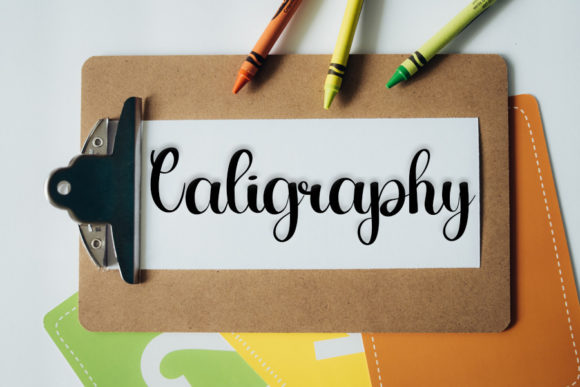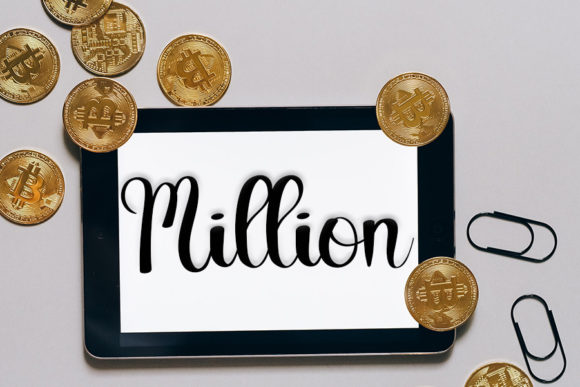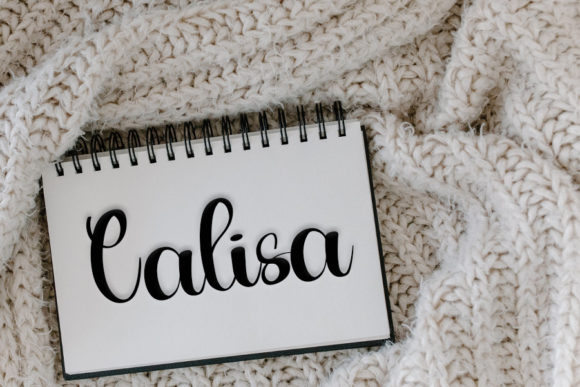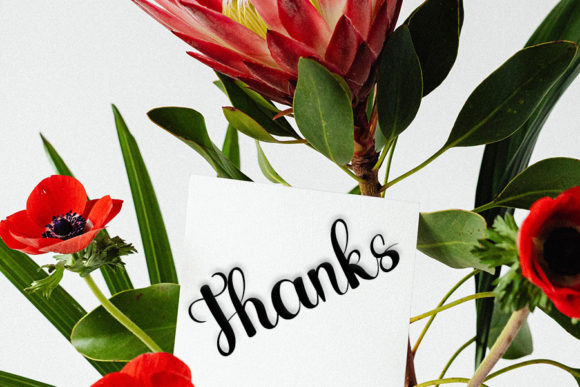
Erlangga Font: The Cute and Charming Handwritten Font for Your Creative Projects
Are you a designer or crafter looking for a font that can add a touch of personality and whimsy to your projects? Look no further than Erlangga Font, a beautiful and charming handwritten font that’s perfect for a wide range of creative endeavors. In this article, we’ll take a closer look at Erlangga Font, its features, and how you can use it to enhance the beauty of your projects.
What is Erlangga Font?
Erlangga Font is a carefully crafted handwritten font that’s designed to be both cute and charming. It’s not too thin and not too thick, making it a balanced and versatile font that’s perfect for a variety of uses. Whether you’re working on a graphic design project, crafting a handmade card, or creating digital content, Erlangga Font is sure to add a touch of personality and style.
Key Features of Erlangga Font
So, what makes Erlangga Font so special? Here are just a few of its key features:
- Balanced and varied: Erlangga Font is designed to be balanced and varied, with a mix of thick and thin strokes that give it a natural, handwritten feel.
- Cute and charming: This font is perfect for projects that require a touch of personality and whimsy. It’s sure to add a smile to your readers’ faces!
- Easy to read: Despite its playful nature, Erlangga Font is still easy to read, making it perfect for use in body text or other applications where readability is important.
- Versatile: Erlangga Font can be used for a wide range of projects, from graphic design and crafting to digital content and more.
How to Use Erlangga Font in Your Projects
Now that we’ve covered the basics of Erlangga Font, let’s talk about how you can use it in your projects. Here are a few ideas to get you started:
- Graphic design: Use Erlangga Font in your graphic design projects, such as brochures, flyers, and posters. It’s perfect for adding a touch of personality and style to your designs.
- Crafting: Erlangga Font is perfect for crafters who love to create handmade cards, scrapbook pages, and other paper crafts. It’s a great way to add a personal touch to your creations.
- Digital content: Use Erlangga Font in your digital content, such as blog posts, social media graphics, and email newsletters. It’s a great way to add some personality and style to your online content.
Tips for Getting the Most Out of Erlangga Font
Here are a few tips for getting the most out of Erlangga Font:
- Experiment with different sizes: Erlangga Font looks great in a variety of sizes, from small and delicate to large and bold. Experiment with different sizes to find the one that works best for your project.
- Pair it with other fonts: Erlangga Font pairs well with a variety of other fonts, from serif and sans serif fonts to script and display fonts. Experiment with different pairings to find the one that works best for your project.
- Use it consistently: To get the most out of Erlangga Font, use it consistently throughout your project. This will help to create a cohesive look and feel that’s sure to impress.
Erlangga Font is a beautiful and charming handwritten font that’s perfect for designers and crafters who want to add a touch of personality and style to their projects. With its balanced and varied strokes, cute and charming feel, and versatility, Erlangga Font is sure to become a favorite in your font collection. So why wait? Download Erlangga Font today and start creating projects that are truly special!
Whether you’re a seasoned designer or a crafty crafter, Erlangga Font is sure to inspire your creativity and help you to create projects that are truly unique and engaging. So go ahead, get creative, and see what amazing things you can do with Erlangga Font!